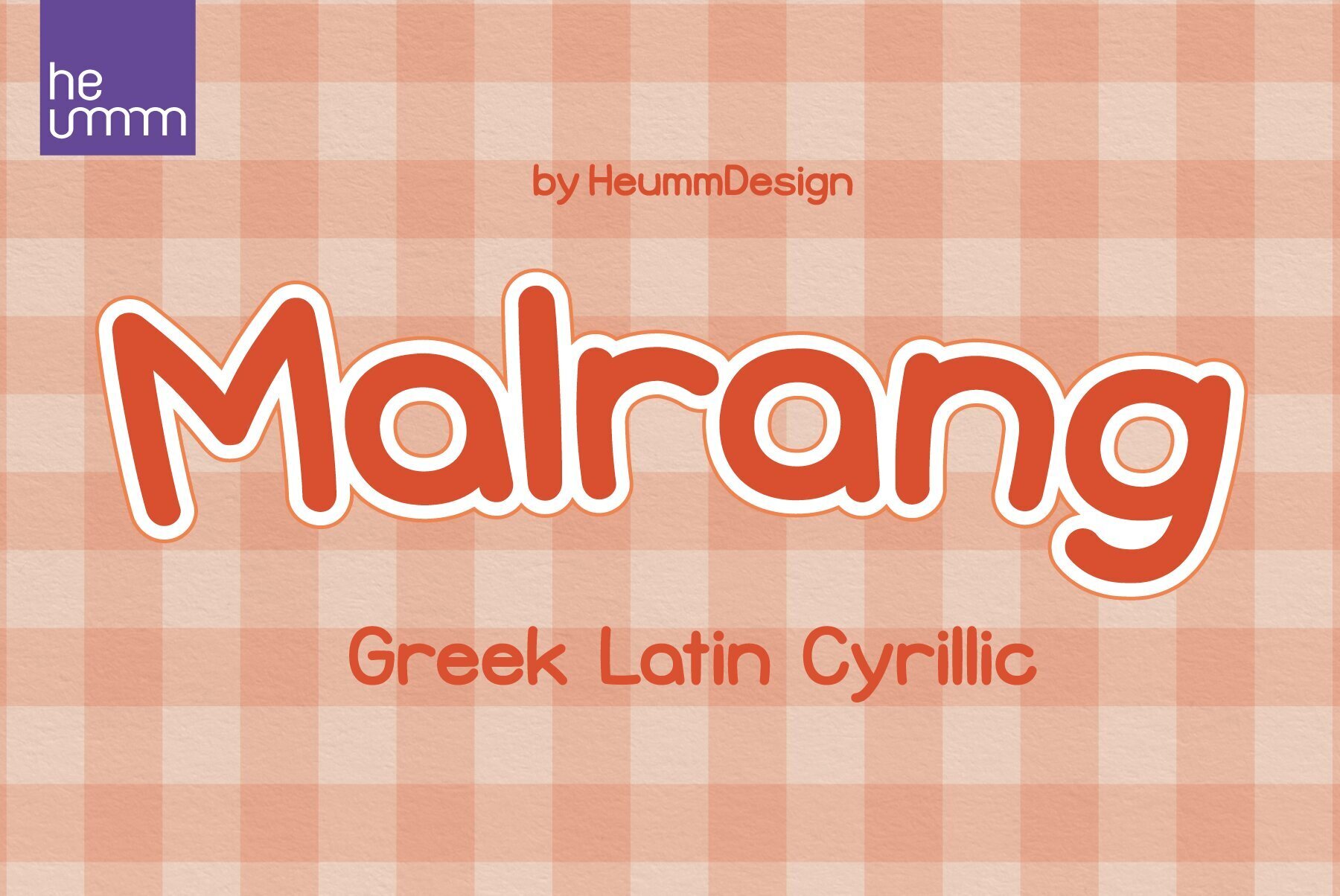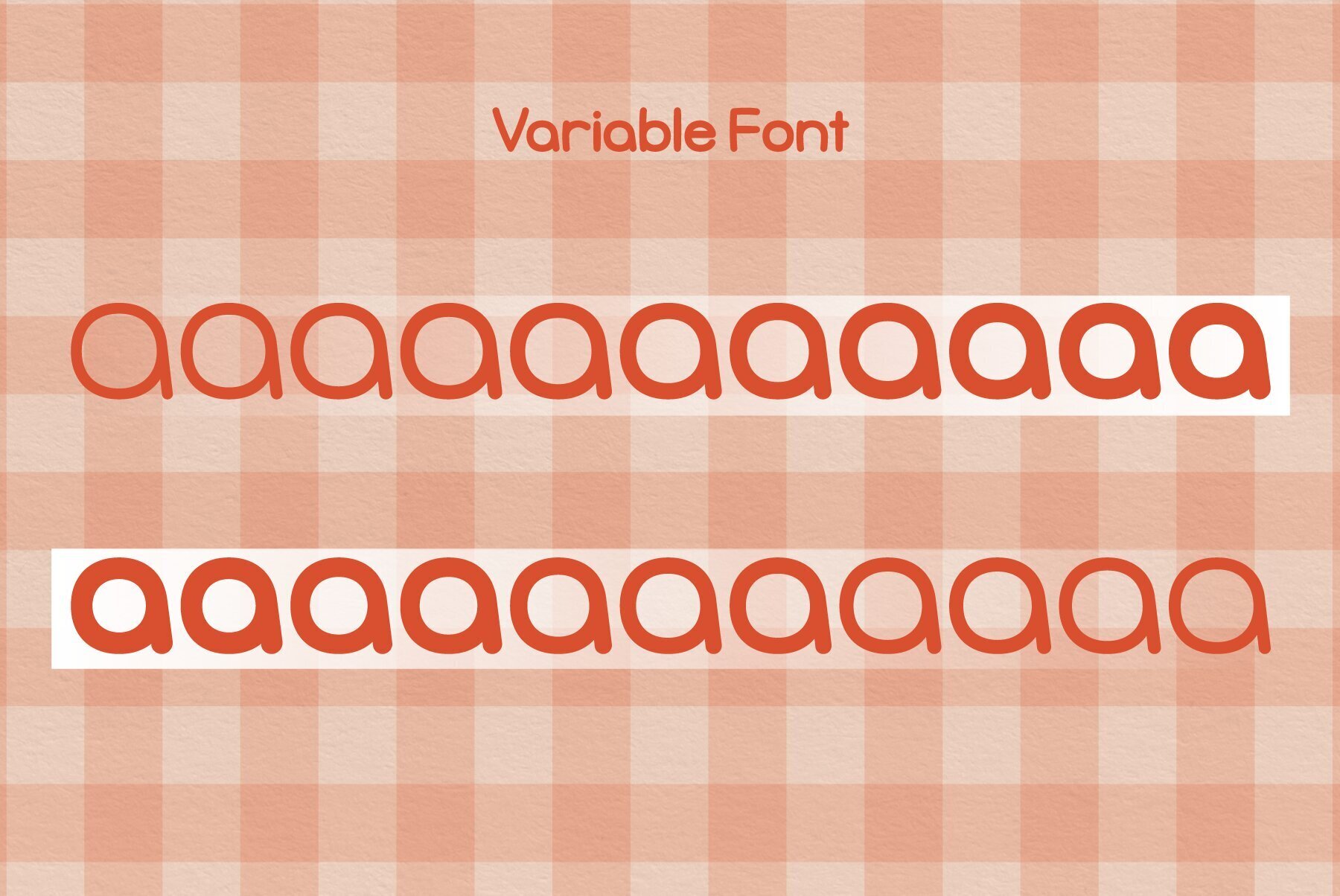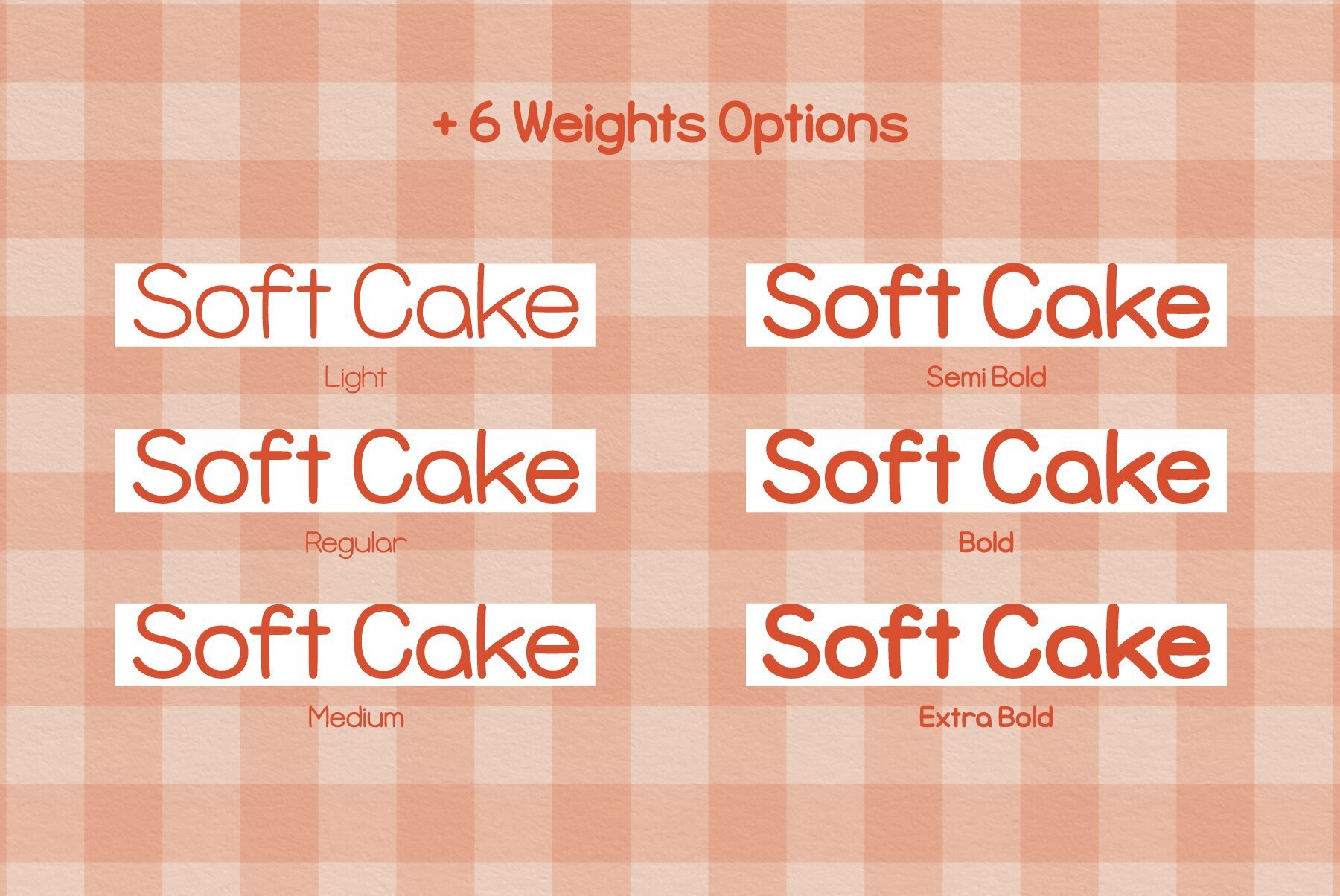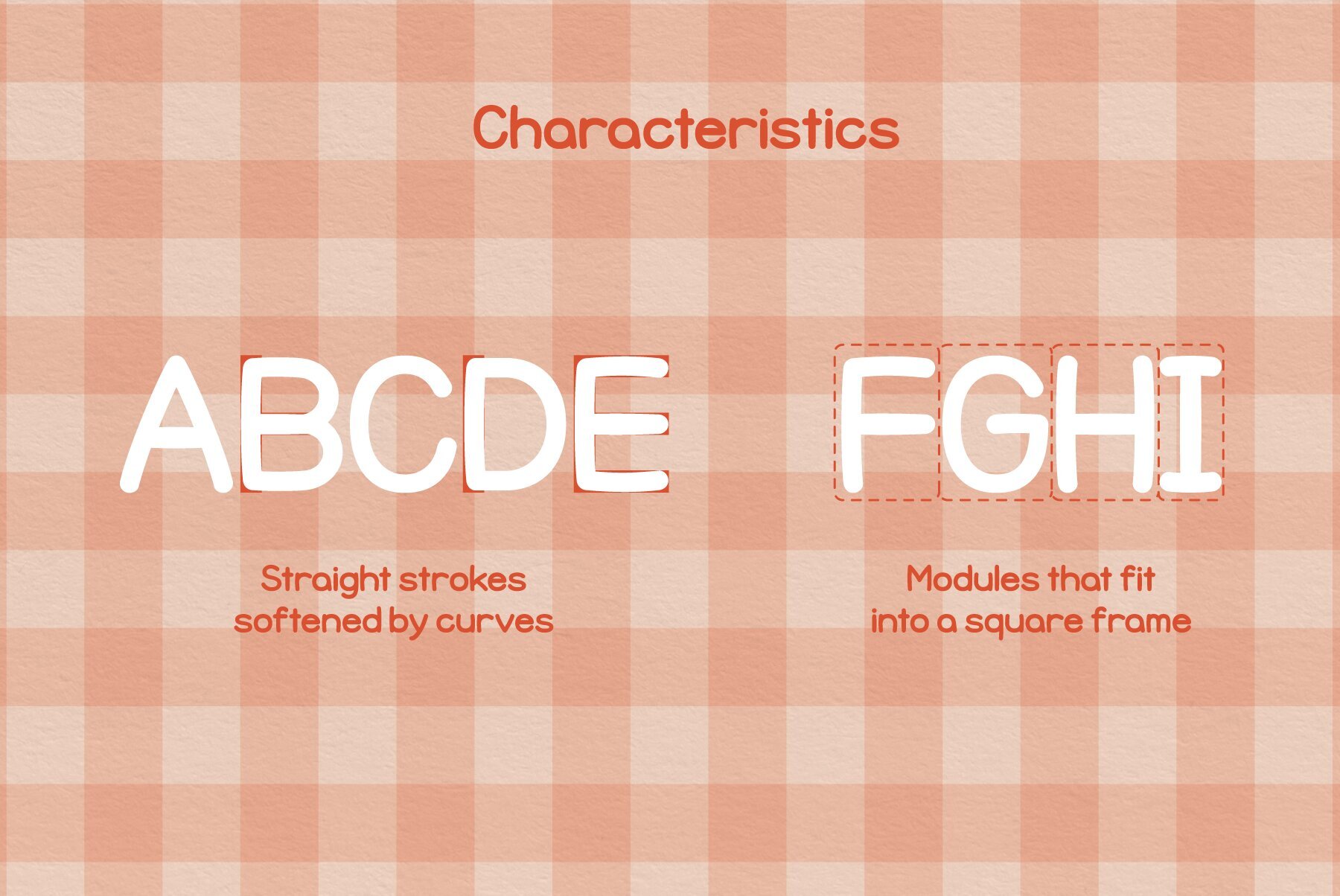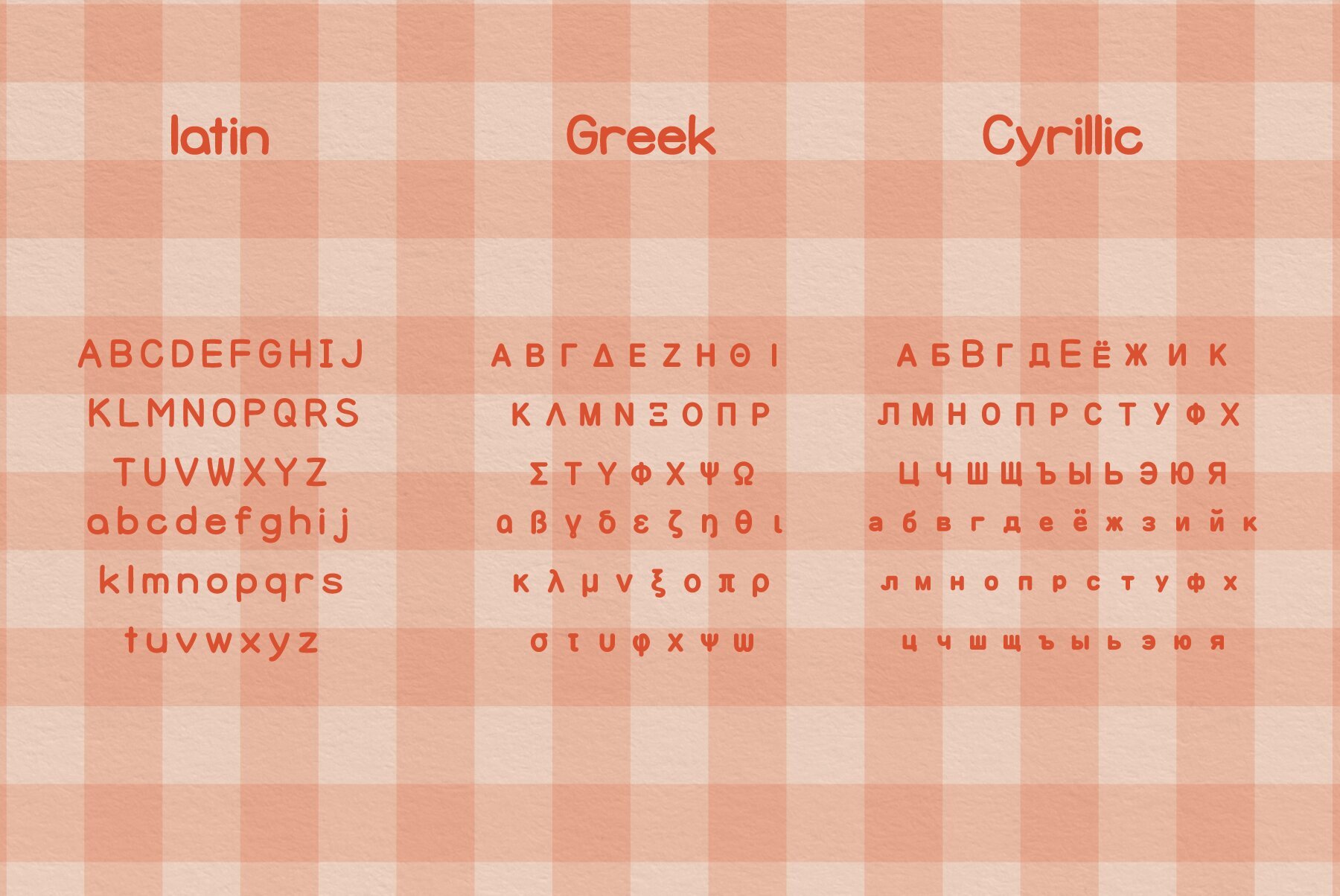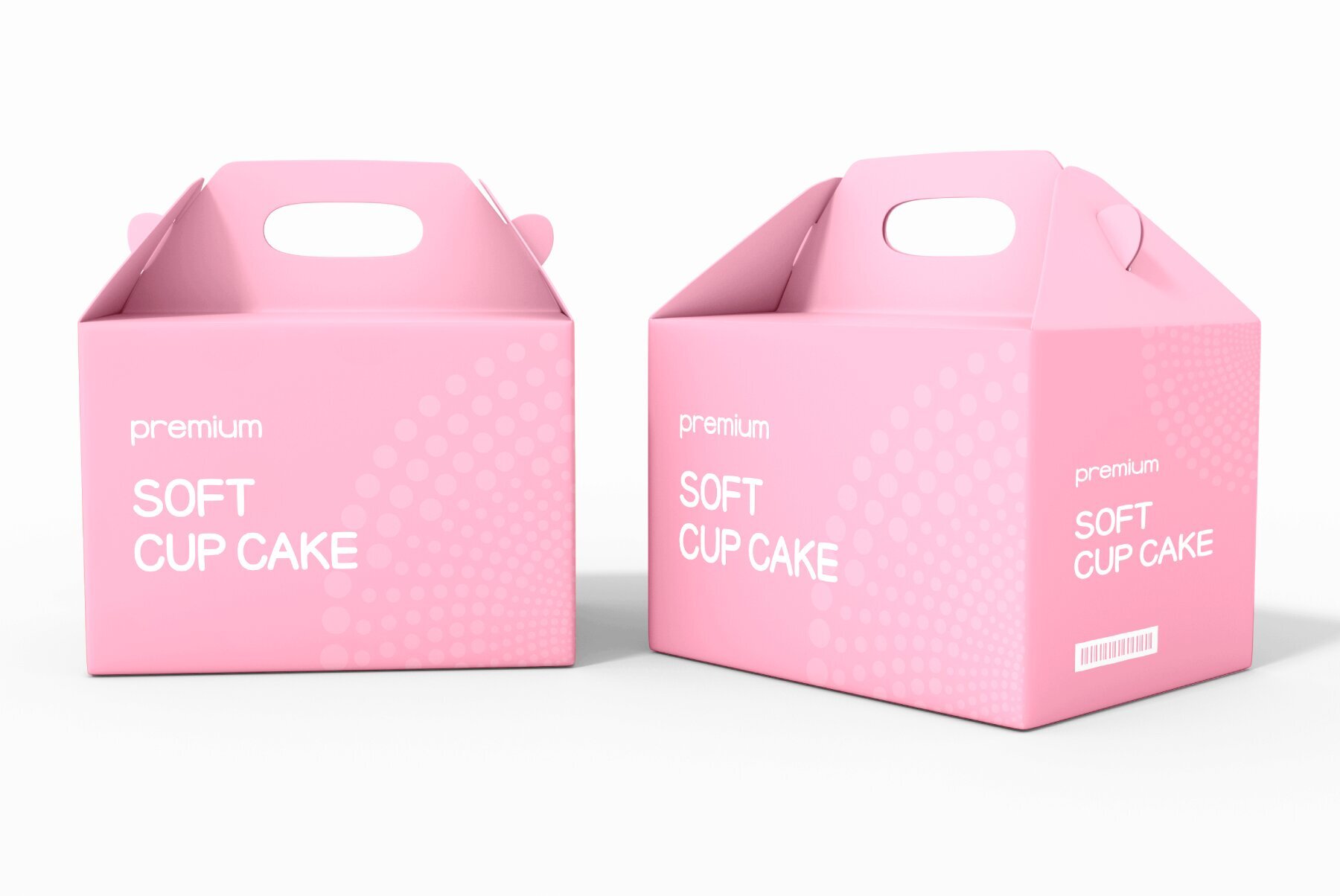
HU Malrang Font
'HU Malrang' is a font that gives a round and soft feel to its tightly packed modules. This font has a variable function, allowing users to fine-tune the thickness they want. (Available only in Adobe programs.) Six basic weights are provided so that they can be used even in programs that do not apply the variable function.